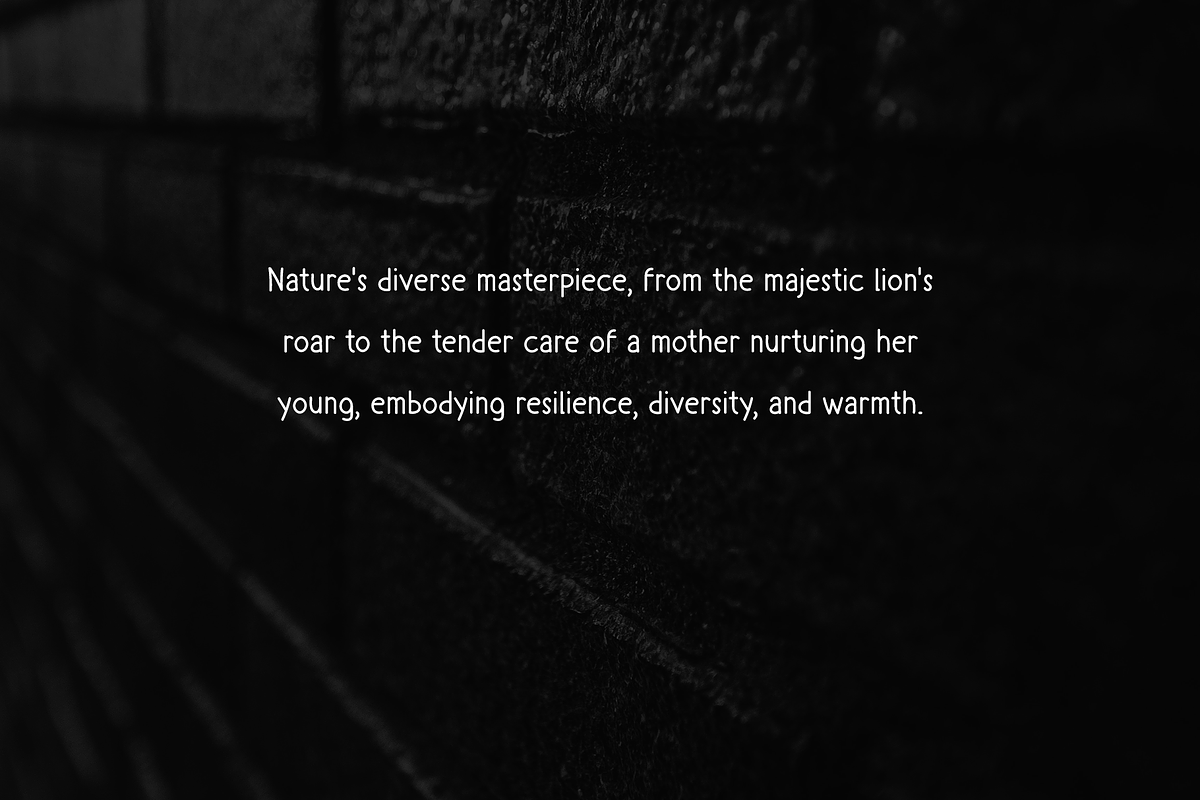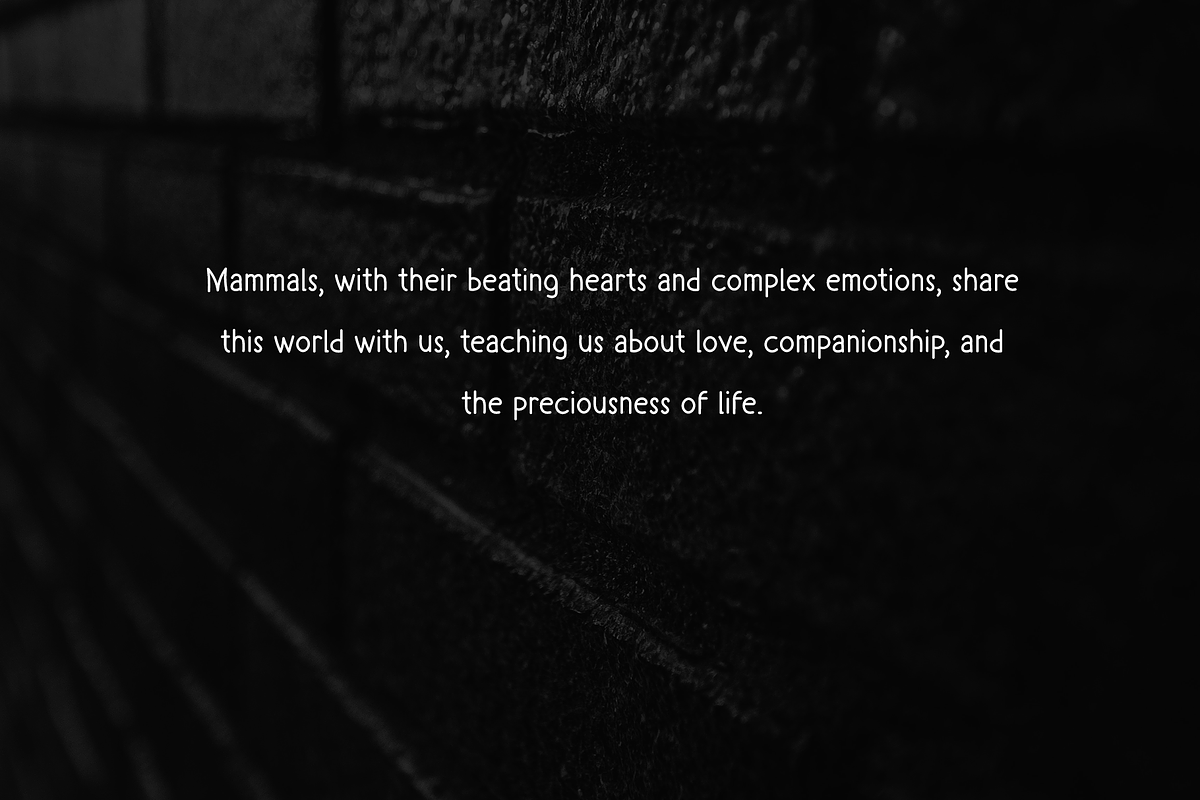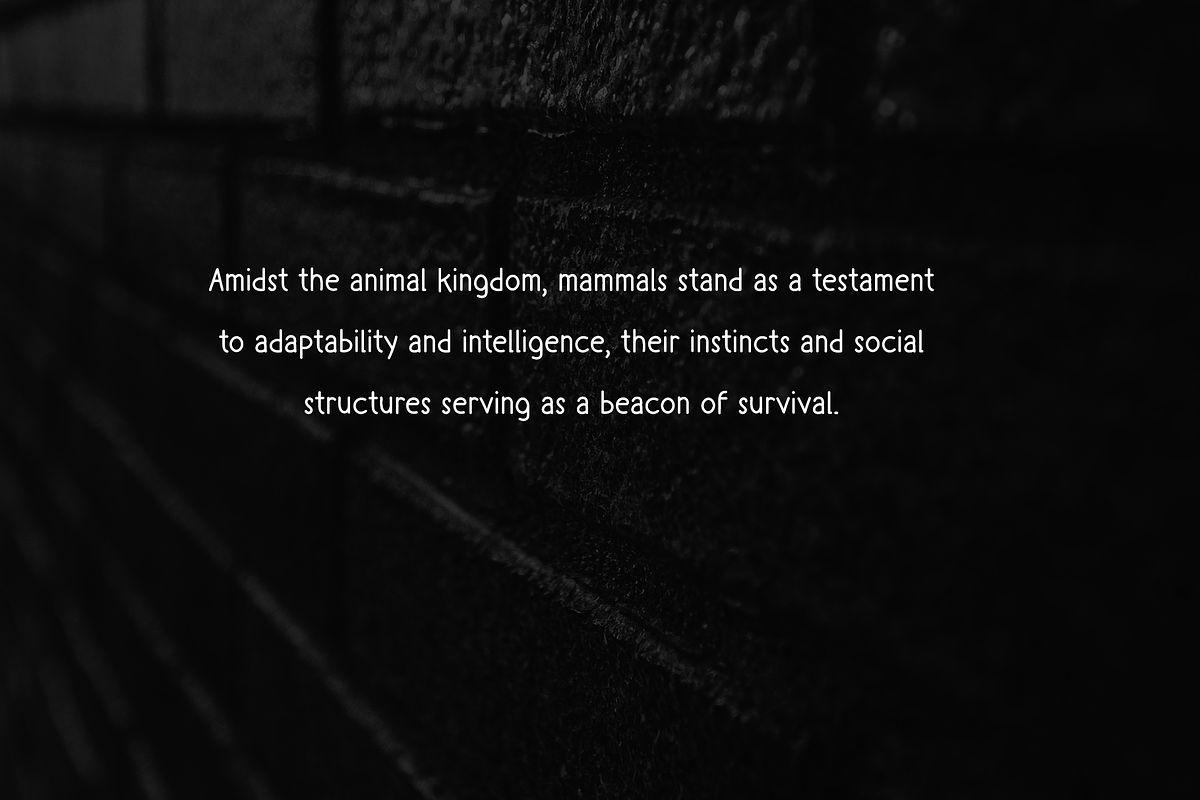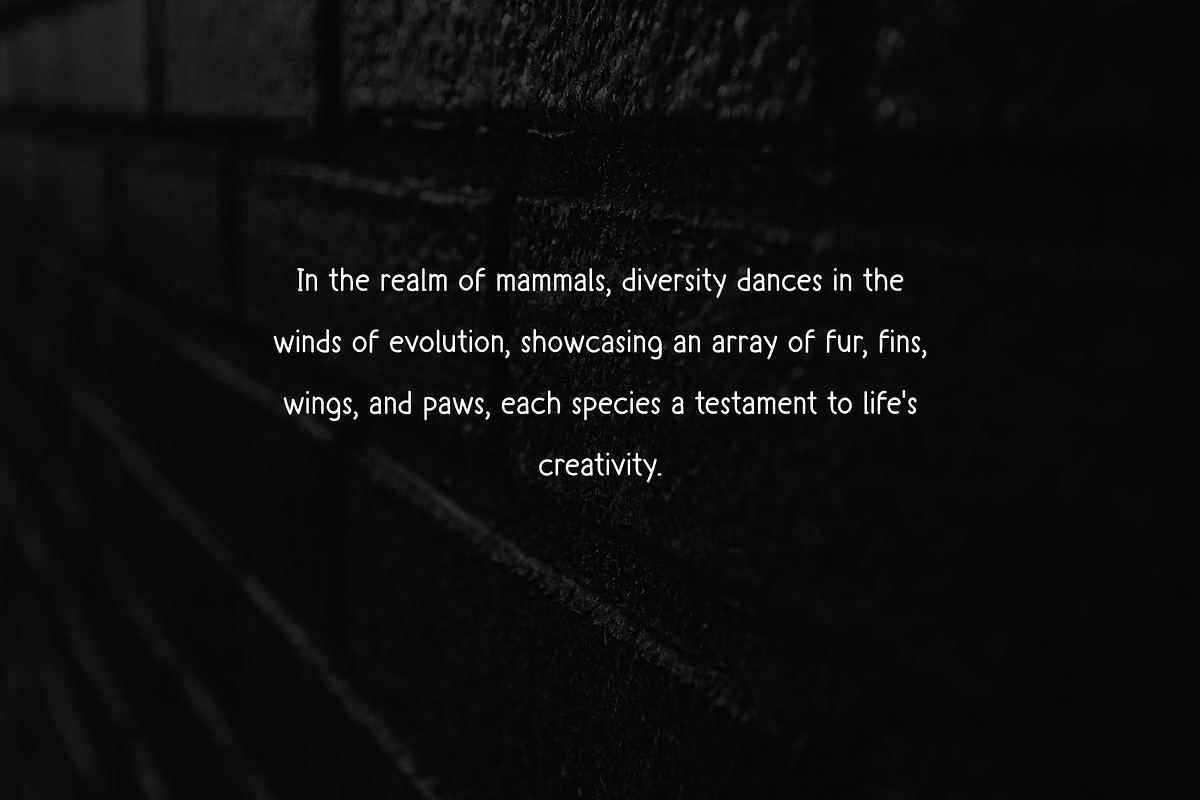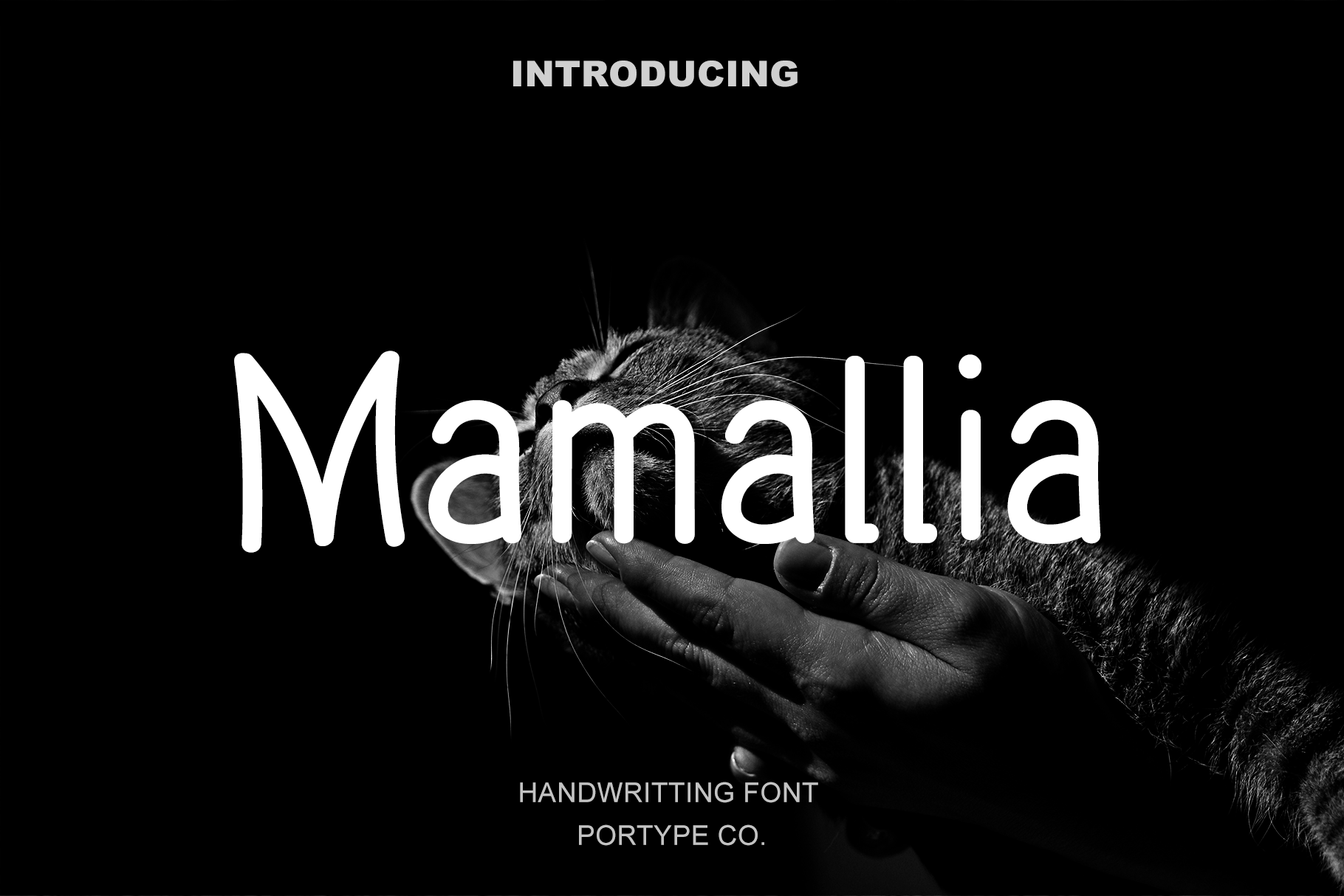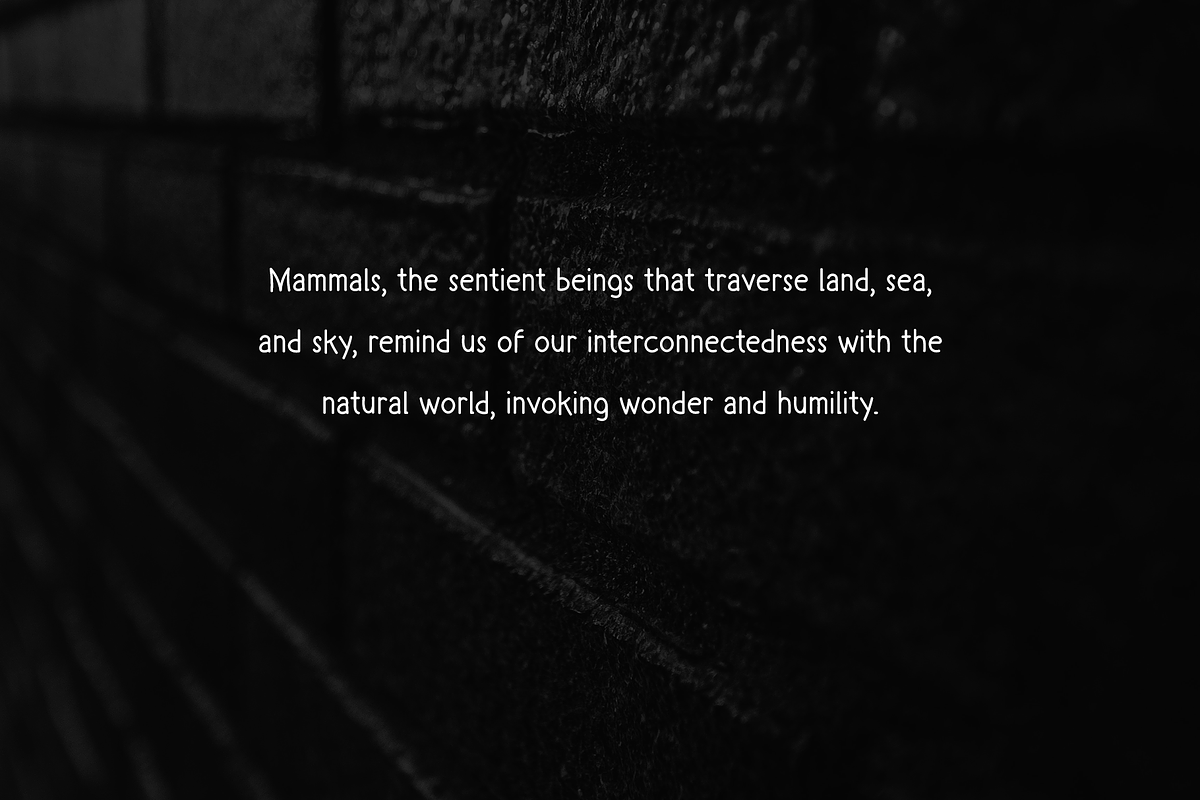
Mamallia - Handwriting font
Mamallia is a unique handwriting font that encapsulates the essence of organic, flowing strokes akin to the graceful curves found in natural handwriting. Inspired by the elegance of mammalian movement and the fluidity of their forms, this font exhibits a blend of soft edges and gentle curves, resembling the spontaneous penmanship of a skilled writer.
This font exudes a warm and welcoming feel, making it suitable for conveying heartfelt messages, creating personal invitations, or adding a touch of human connection to various design projects. Whether used for branding or creative displays, Mammalia brings a sense of organic authenticity and human touch to any written or visual composition.